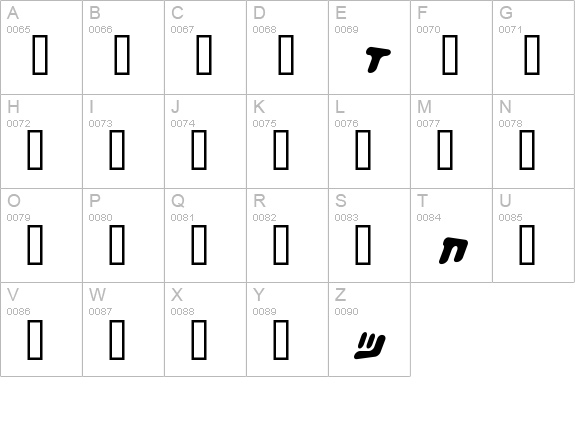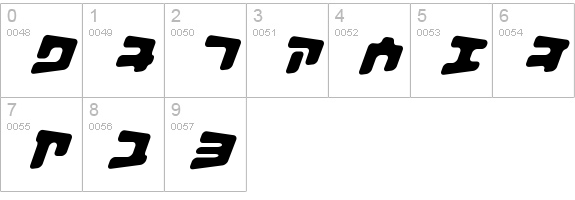
I2Biscuiï¿¿Bank R Font Details
Introducing the I2Biscuiï¿¿Bank R font, a stunning typographic masterpiece that combines elegance, versatility, and a touch of playfulness. This font is the perfect choice for those who seek to make a bold statement with their designs, while still maintaining a sense of sophistication. I2Biscuiï¿¿Bank R is a versatile font that can be used for a wide range of projects, including branding, logo design, packaging, advertising, and more. Its clean lines and balanced proportions make it highly legible, ensuring that your message will always be conveyed with clarity and impact. What sets I2Biscuiï¿¿Bank R apart is its unique blend of modern simplicity and timeless charm. The carefully crafted letterforms exude a sense of refinement, while the subtle curves add a touch of warmth and personality. This font strikes the perfect balance between professionalism and creativity, making it a valuable asset for any designer. One of the most appealing aspects of I2Biscuiï¿¿Bank R is that it is freely available to download at FontsMarket.com. This means that you can access this incredible font without any cost, allowing you to enhance your designs with a high-quality typeface without breaking the bank. FontsMarket.com offers a vast collection of fonts, and I2Biscuiï¿¿Bank R is just one of the many treasures waiting to be discovered. Download I2Biscuiï¿¿Bank R today and unlock a world of design possibilities. Whether you're a professional designer or a hobbyist, this font is sure to become a valuable tool in your creative arsenal. Let I2Biscuiï¿¿Bank R elevate your designs to new heights of elegance and professionalism, all while enjoying the freedom of accessing it for free at FontsMarket.com.